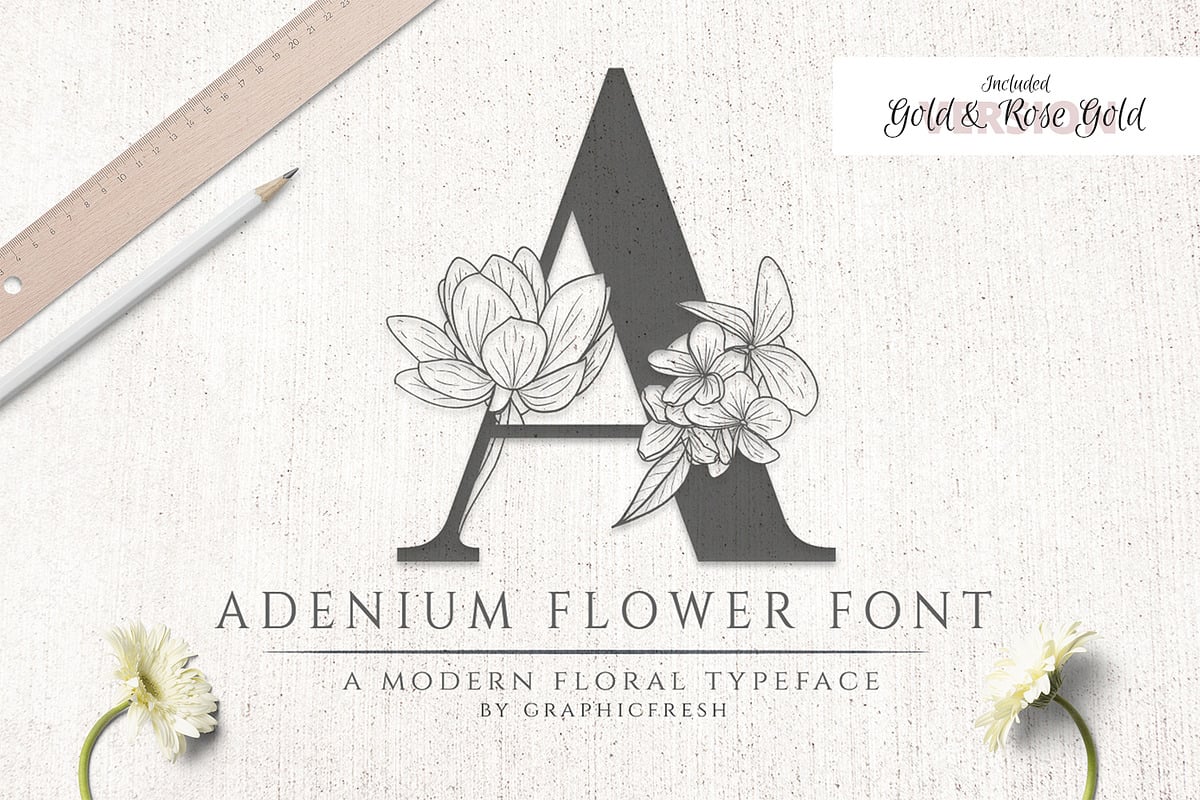
Adenium Font + Gold & Rose Gold Foil
A stunning botanical serif font with hand-drawn florals, gold foil alphabet, and vector flower elements — all in one package.
Adenium Flower Font draws its inspiration from the delicate beauty of frangipani blossoms — known in Latin as "Adenium." The elegant serif letterforms are entwined with intricate floral illustrations, creating a typeface that feels both refined and organic. Every character has been crafted to evoke natural grace, making it perfect for designs that need a touch of botanical luxury.
This font shines across a wide range of creative applications, including wedding invitations, jungle and coastal-themed events, boutique branding, restaurant menus, hotel identities, beach resort collateral, logotypes, and business cards. The serif structure pairs beautifully with the floral detailing, striking a balance between classic elegance and artistic flair.
Each character is available in two distinct versions — uppercase and lowercase feature different designs — giving you creative flexibility and variety within a single font.